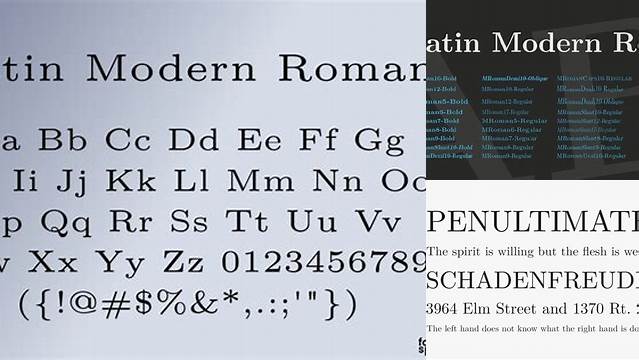
Are you looking to infuse your projects with a touch of timeless elegance? Look no further than the Latin Modern Roman font, a versatile and sophisticated typeface that harkens back to the classic Roman letterforms while embracing modern design principles. In this comprehensive guide, we'll delve into the history, characteristics, and applications of this remarkable font, exploring why it's a favorite among designers and typographers worldwide. So, guys, let's dive in and discover the beauty of Latin Modern Roman!
Delving into the History of Latin Modern Roman
The Latin Modern Roman font family has a rich and fascinating history, tracing its roots back to the iconic Computer Modern typeface designed by Donald Knuth for his renowned The Art of Computer Programming series. Knuth's Computer Modern aimed to capture the essence of classical typography within the digital realm. However, its use was initially limited due to licensing restrictions. In the early 2000s, a group of typographers and developers embarked on a mission to create a freely available, high-quality alternative, giving birth to the Latin Modern family. This project was led by Janusz Nowacki and his team, who meticulously expanded and refined Knuth's original designs, ensuring that the Latin Modern Roman font retained its classical charm while meeting the demands of contemporary typography. The result is a font that is both historically significant and remarkably versatile, making it a valuable asset in any designer's toolkit. The Latin Modern project embodies the spirit of open-source collaboration, demonstrating how collective effort can lead to the creation of exceptional resources for the design community. This collaborative spirit is crucial in the world of digital typography, where the sharing of knowledge and resources can foster innovation and creativity. The Latin Modern Roman font family is not just a typeface; it's a testament to the power of collaboration and the enduring legacy of classical typography. The development team's dedication to preserving the integrity of the original design while enhancing its functionality is truly commendable. Their work ensures that the Latin Modern Roman font remains a relevant and valuable resource for designers and typographers for years to come. The font's open-source nature also means that it is constantly evolving, with new glyphs and features being added by the community. This ongoing development ensures that the Latin Modern Roman font stays up-to-date with the latest typographic trends and technologies. The font's widespread adoption is a testament to its quality and versatility. It is used in a wide range of applications, from academic publications to corporate branding, demonstrating its suitability for both formal and informal contexts.
Key Characteristics of the Latin Modern Roman Font
The Latin Modern Roman font is characterized by its elegant serifs, balanced proportions, and exceptional readability. Its serifs, the small decorative strokes at the ends of the letterforms, lend a touch of formality and sophistication, making it suitable for a wide range of applications, from body text in books and articles to headings and titles in magazines and websites. The font's balanced proportions ensure that each letterform is visually harmonious, contributing to its overall aesthetic appeal and readability. This balance is particularly important in longer texts, where the consistency of the letterforms helps to maintain the reader's attention and prevent eye fatigue. The Latin Modern Roman font excels in both print and digital environments, thanks to its carefully crafted design and attention to detail. Its clear and distinct letterforms render beautifully on screen, even at smaller sizes, making it an excellent choice for web typography. In print, its elegant serifs and balanced proportions create a visually appealing and highly legible text block. One of the key features of the Latin Modern Roman font is its extensive character set, which includes a wide range of glyphs, ligatures, and diacritics. This comprehensive character set makes it suitable for typesetting in a variety of languages, including those with complex typographic requirements. The font also includes a range of weights and styles, from regular to bold and italic, providing designers with a versatile palette for creating visually compelling layouts. The italic variant of the Latin Modern Roman font is particularly noteworthy for its graceful and flowing letterforms, which add a touch of elegance and sophistication to any design. The bold weight is equally impressive, providing a strong and authoritative presence without sacrificing readability. The Latin Modern Roman font's versatility extends to its use in different design contexts. It can be used effectively in both formal and informal settings, making it a valuable asset for designers working on a wide range of projects. Its classical roots lend it a timeless quality, while its modern design principles ensure that it remains relevant and contemporary.
Exploring the Versatile Applications of Latin Modern Roman
The Latin Modern Roman font is a true workhorse, excelling in a diverse array of applications. Its inherent legibility and classical aesthetic make it a stellar choice for body text in books, journals, and academic papers. Imagine a meticulously typeset novel, where the Latin Modern Roman font gracefully guides the reader through each page, its serifs providing a subtle visual anchor that enhances the reading experience. The font's clarity and balance prevent eye strain, allowing readers to immerse themselves in the narrative without distraction. Beyond the realm of literature, the Latin Modern Roman font shines in academic publishing, where its formal yet approachable character lends credibility and sophistication to scholarly works. The font's ability to render complex mathematical equations and scientific notations flawlessly further cements its status as a go-to choice for researchers and academics. But the versatility of the Latin Modern Roman font extends beyond the printed page. Its clean lines and balanced proportions translate beautifully to the digital realm, making it an excellent option for website typography. In the online world, where readability is paramount, the Latin Modern Roman font ensures that website content is easily accessible and engaging. Its clear letterforms render crisply on screens of all sizes, from desktop monitors to mobile devices, providing a consistent and enjoyable reading experience for all users. Moreover, the Latin Modern Roman font's elegance makes it a natural fit for branding materials. Its refined appearance can elevate a company's image, conveying a sense of professionalism and trustworthiness. Whether it's used in a logo, on business cards, or in marketing collateral, the Latin Modern Roman font adds a touch of sophistication that can help a brand stand out from the crowd. The font's versatility also extends to its use in editorial design. Its ability to pair well with other typefaces makes it a valuable asset for magazine and newspaper layouts. The Latin Modern Roman font can be used for headlines, subheadings, and body text, creating a cohesive and visually appealing design. Its timeless quality ensures that it will remain a relevant choice for editorial designers for years to come. In short, the Latin Modern Roman font is a versatile and reliable typeface that can be used in a wide range of applications. Its legibility, elegance, and timeless quality make it an excellent choice for any project that requires a touch of sophistication.
Tips and Tricks for Using Latin Modern Roman Effectively
Now that you've downloaded the Latin Modern Roman font and are eager to incorporate it into your designs, let's explore some tips and tricks to ensure you're using it effectively. First and foremost, consider the context of your project. The Latin Modern Roman font's classical roots lend it a certain formality, making it an excellent choice for projects that require a touch of elegance or authority. However, its clean lines and balanced proportions also make it suitable for more contemporary designs. Think about the overall tone and message you want to convey, and choose the weight and style of the Latin Modern Roman font that best aligns with your vision. Pairing fonts is an art form in itself, and the Latin Modern Roman font plays well with a variety of other typefaces. For a classic and sophisticated look, try pairing it with a sans-serif font like Helvetica or Arial. The contrast between the serifs of the Latin Modern Roman font and the clean lines of the sans-serif font can create a visually appealing and highly legible combination. Alternatively, you can pair the Latin Modern Roman font with another serif font for a more harmonious and traditional aesthetic. When pairing fonts, it's important to consider the hierarchy of your design. Use the Latin Modern Roman font for headlines and subheadings to create a sense of importance and formality, and then use a simpler font for body text to ensure readability. Pay attention to kerning and tracking, guys! These typographic adjustments can make a significant difference in the overall appearance of your text. Kerning refers to the spacing between individual letter pairs, while tracking refers to the overall spacing between all the letters in a word or phrase. The Latin Modern Roman font is meticulously designed, but sometimes manual adjustments are necessary to achieve optimal readability and visual balance. In general, you'll want to tighten the kerning between letters that are too far apart and loosen the kerning between letters that are too close together. You can also adjust the tracking to fine-tune the overall density of your text. Don't be afraid to experiment with different weights and styles of the Latin Modern Roman font. The font family includes a range of options, from light to bold and italic, so you have plenty of flexibility to create visual interest and emphasis in your designs. Use bold weights for headlines and subheadings to make them stand out, and use italic for emphasis within body text. Consider using the Latin Modern Roman font for special characters and symbols. The font includes a comprehensive character set, including a variety of ligatures, fractions, and mathematical symbols. These special characters can add a touch of elegance and sophistication to your designs, particularly in academic or scientific contexts. By following these tips and tricks, you can harness the full potential of the Latin Modern Roman font and create stunning designs that are both visually appealing and highly legible. Remember, guys, typography is a crucial element of design, so take the time to choose the right font and use it effectively.
In conclusion, the Latin Modern Roman font is a timeless and versatile typeface that offers a unique blend of classical elegance and modern functionality. Its rich history, balanced proportions, and exceptional readability make it an ideal choice for a wide range of applications, from books and academic papers to websites and branding materials. So, go ahead and embrace the beauty of Latin Modern Roman – your designs will thank you for it!